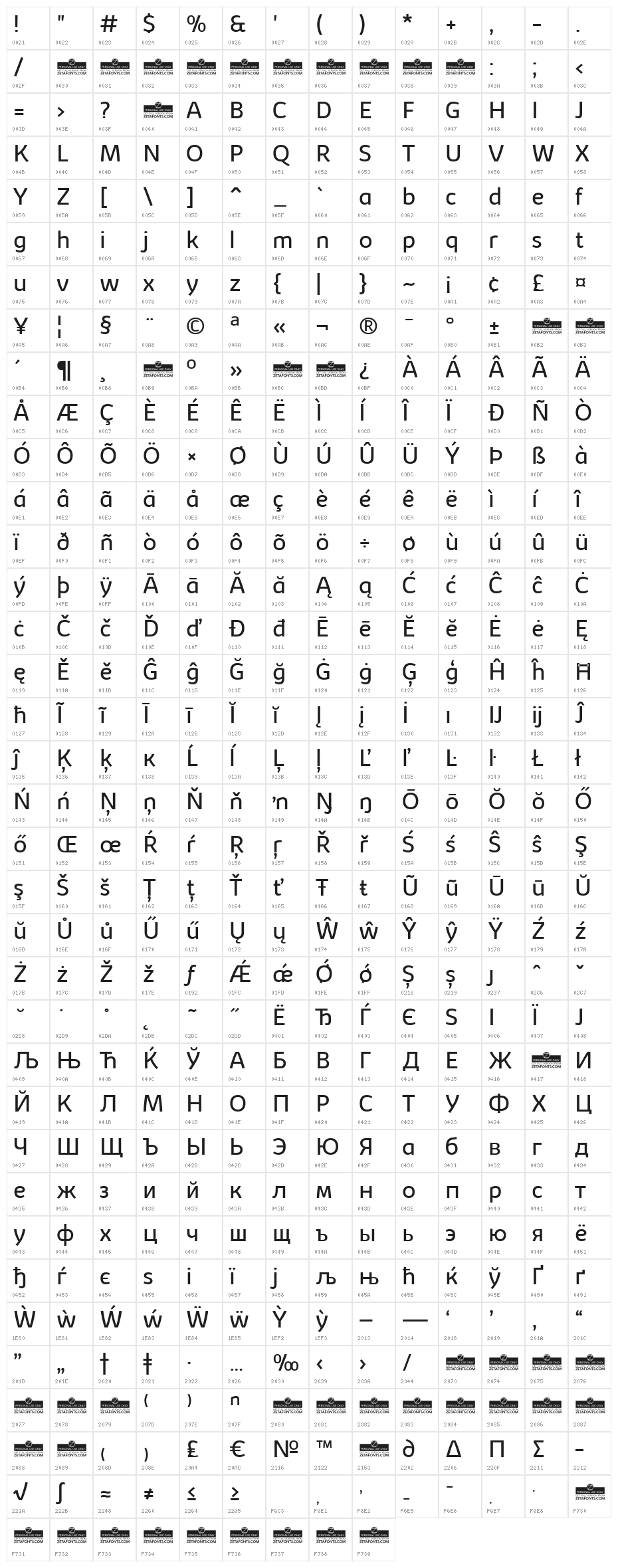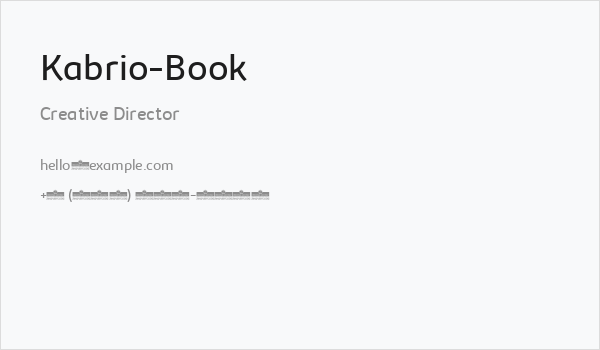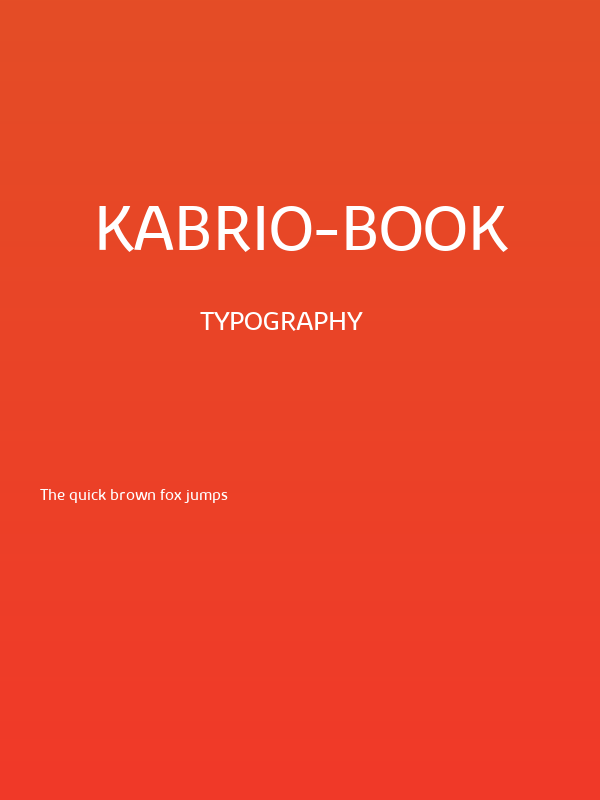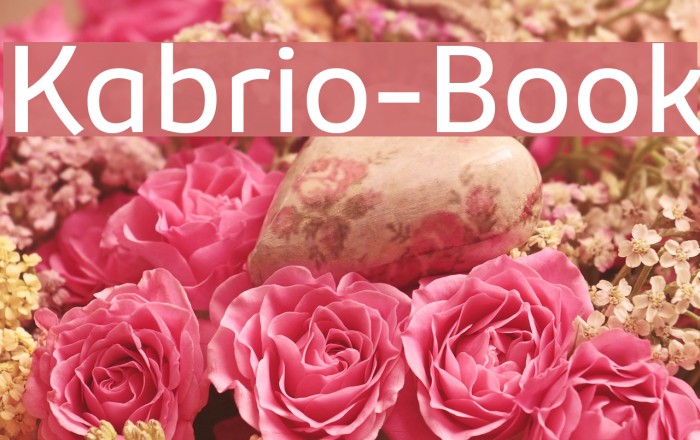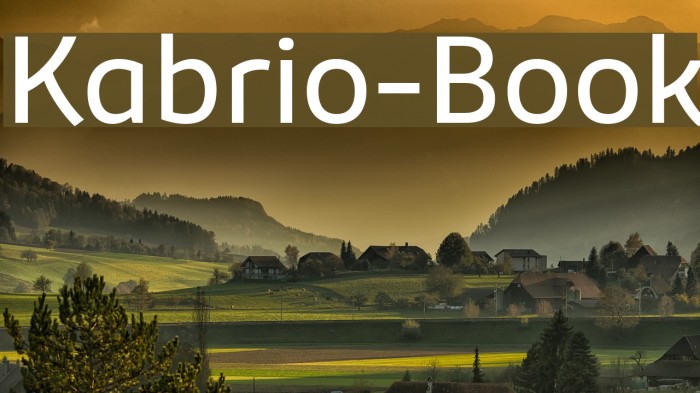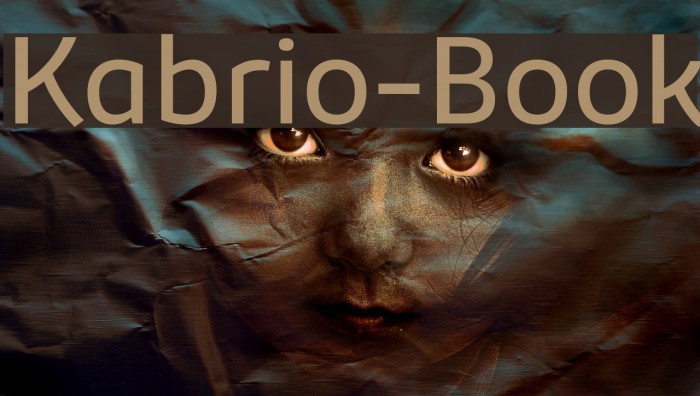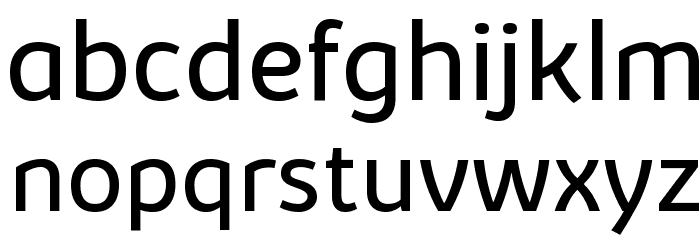
Kabrio-Book Font
Kabrio-Book Description
This typeface features a clean and modern sans-serif design, characterized by its geometric shapes and balanced proportions. The uppercase letters are bold and assertive, while the lowercase letters maintain a friendly and approachable appearance. The numerals are clear and easy to read, making them suitable for a variety of applications. The special characters are well-integrated, maintaining the overall aesthetic of the font. The consistent stroke width throughout the characters provides a harmonious and cohesive look, making it versatile for both digital and print media.
| Proposed Projects | Ideal for branding, web design, advertising, and editorial projects. |